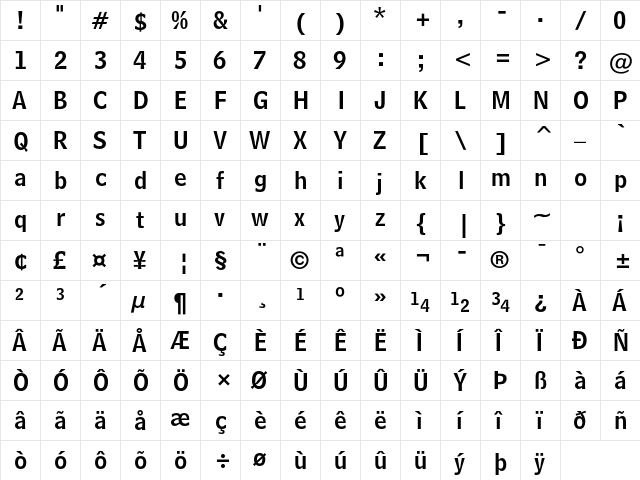
Bell Centennial Std Name & Number
| Designer | Matthew Carter |
Design Context for Bell Centennial Std Typeface
Bell Centennial Std takes a measured approach to typography — its balanced proportions and neutral character make it a reliable workhorse for both digital and print work.